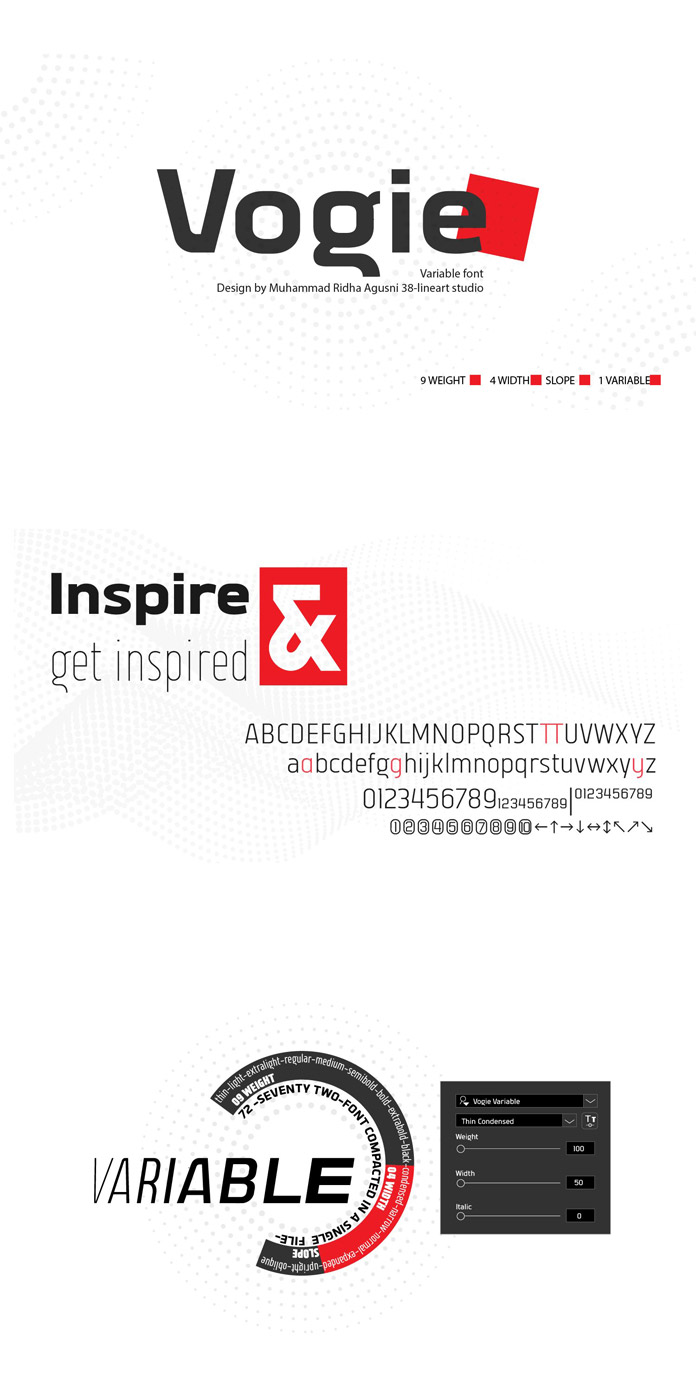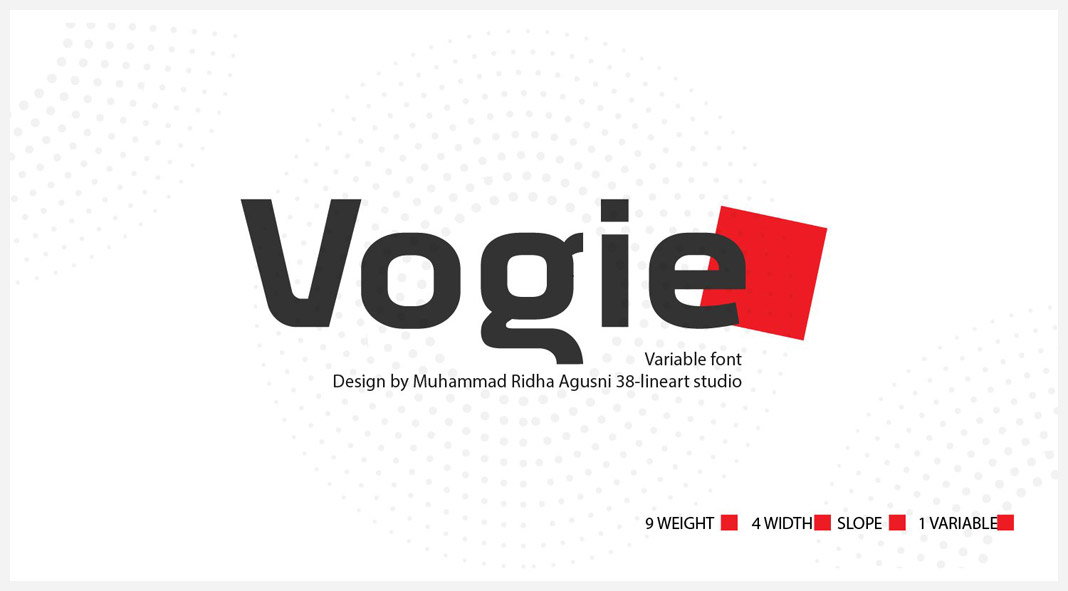
Take a look at Vogie, a modern sans-serif font family with variable widths.
Designed by Muhammad Ridha Agusni of 38-Lineart, Vogie is a voguish new font that is sure to turn heads. With its bold, clean lines, and unique shapes, Vogie is the perfect choice for any project that demands a touch of elegance in the form of a modern sans-serif font. Whether you are looking for an eye-catching typeface for a brand identity, poster design, or social media post, Vogie is the perfect font for the job. So don’t be shy, give Vogie a try today!
The Vogie font comes with 9 weights, and 4 widths, and is available in regular and oblique. 62 fonts are encapsulated in one variable font making Vogie a great font for today’s typographic demands. Just click on the following link to learn more about this beautiful and highly variable sans-serif font.